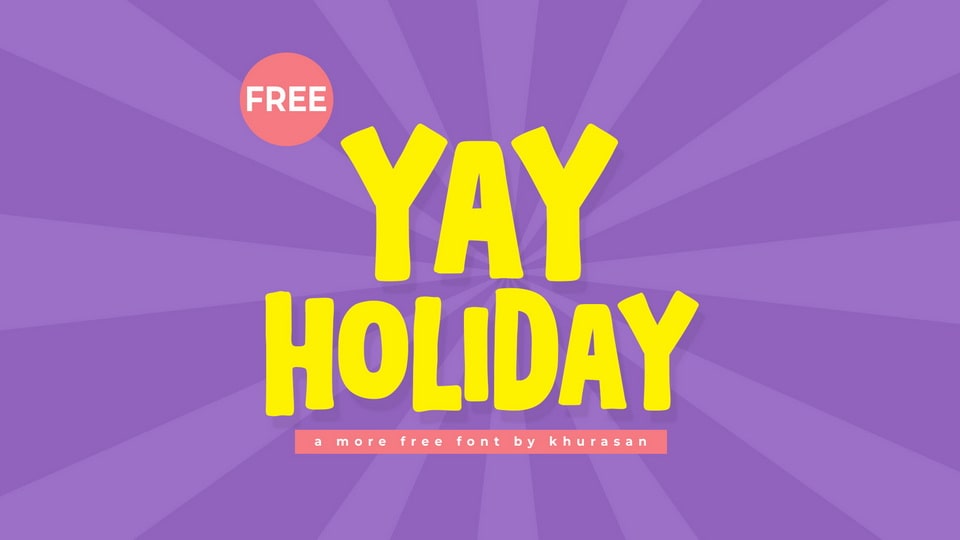
Download Yay Holiday font, a playful and cheerful hand-crafted cartoon typeface bursting with personality and fun. Its bubbly, uneven letterforms bring a sense of whimsy and charm.